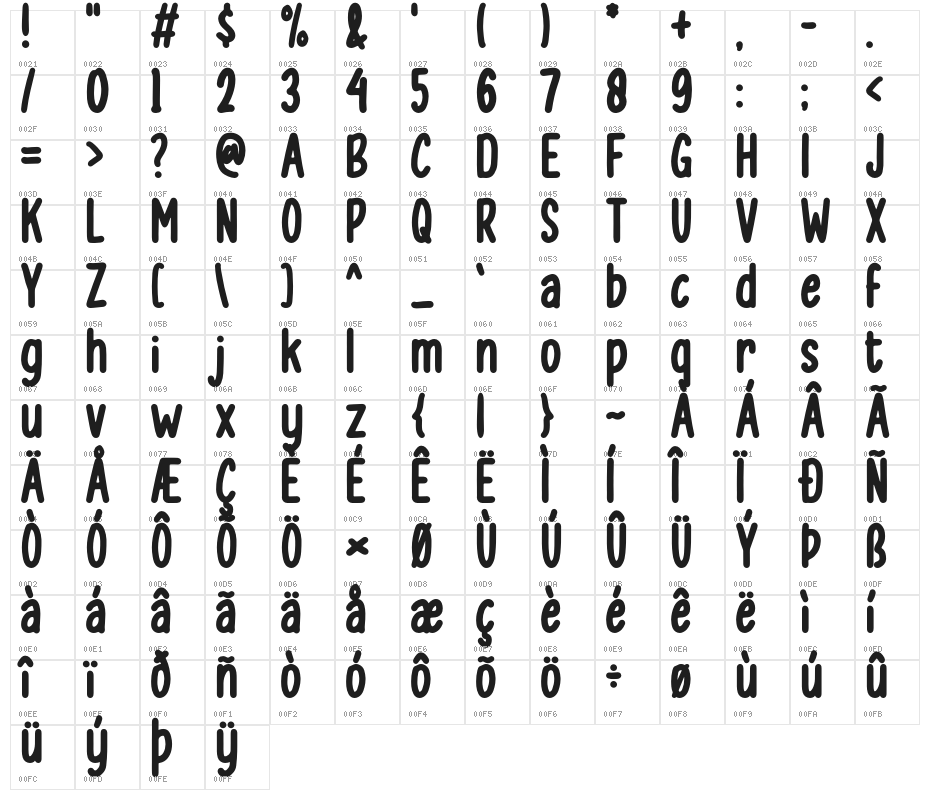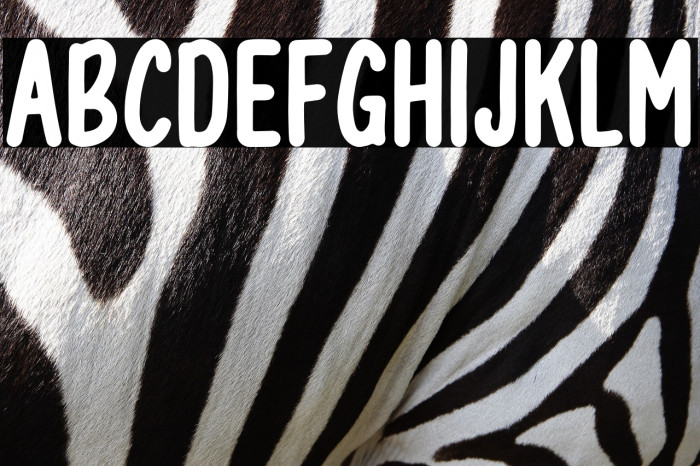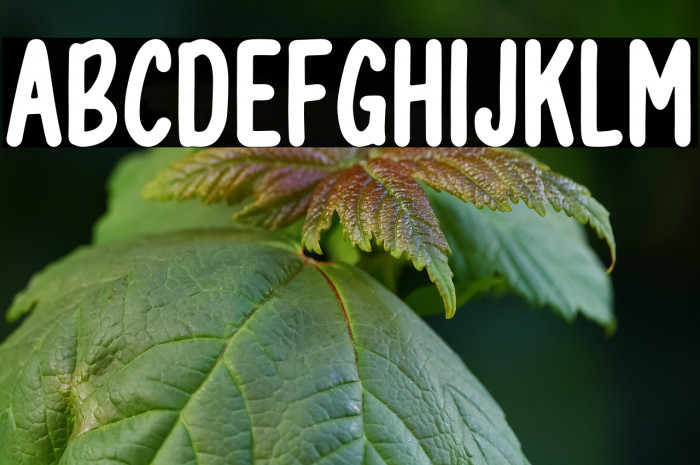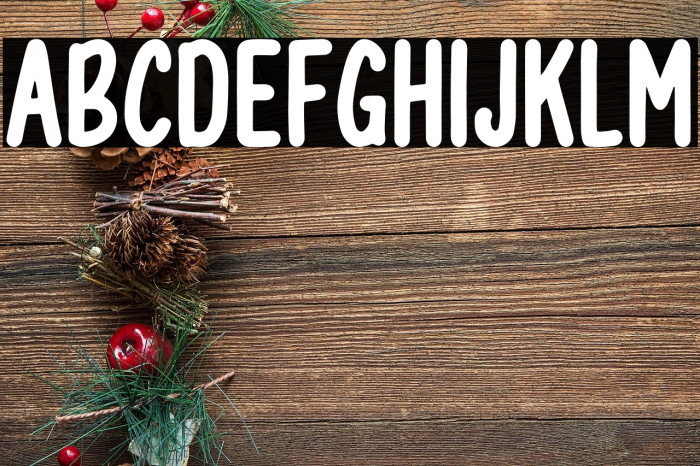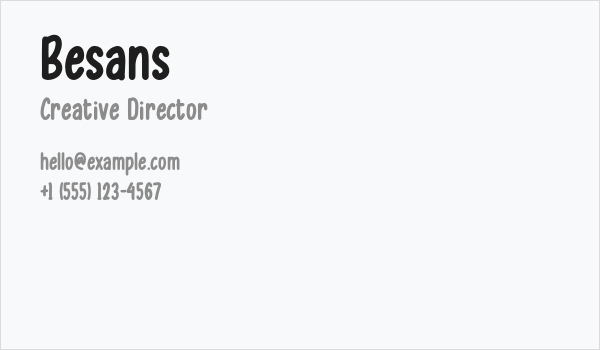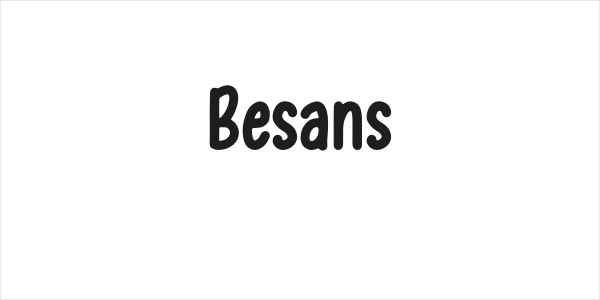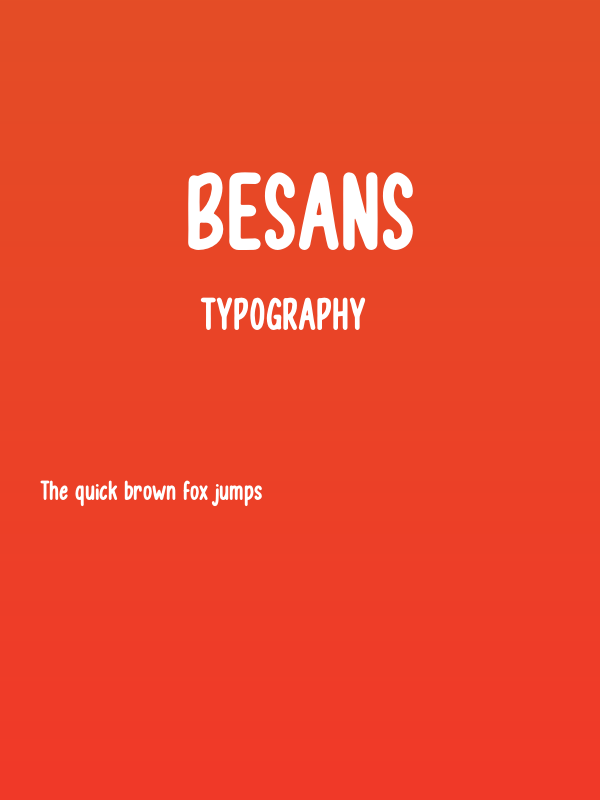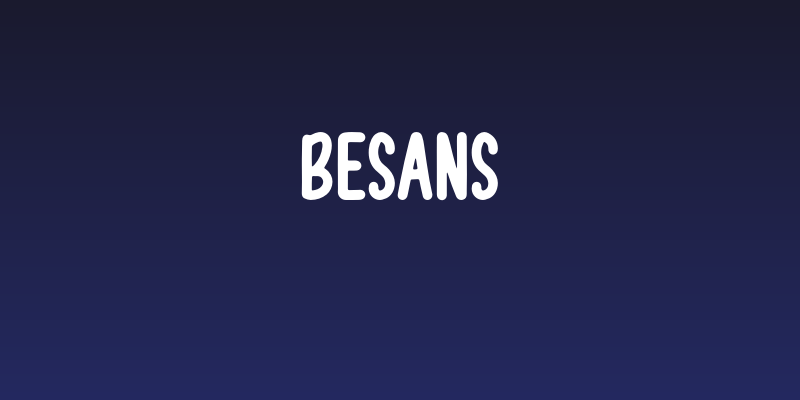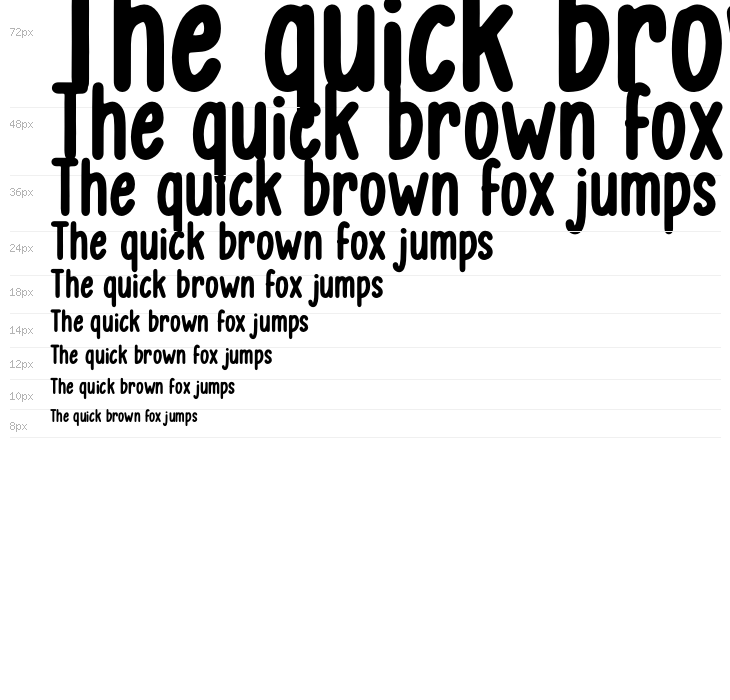
Besans Font
Besans Description
This font features a bold and playful style with rounded edges and a hand-drawn appearance. The letters are thick and uniform, giving it a strong presence. The uppercase and lowercase characters maintain a consistent width, while the numbers and special characters complement the overall design. Its informal and friendly look makes it suitable for creative and casual applications. The font's strokes are smooth and continuous, enhancing its legibility and charm. It exudes a sense of fun and approachability, making it ideal for projects that aim to convey warmth and creativity.
| Overall Style | Playful, Casual |
| Proposed Projects | Ideal for children's books, playful branding, casual invitations, and creative posters. |